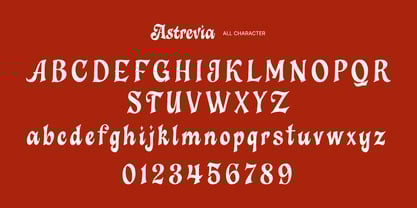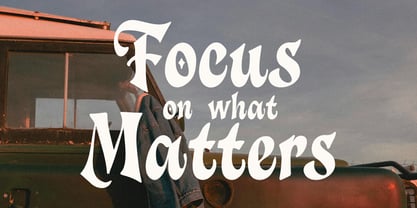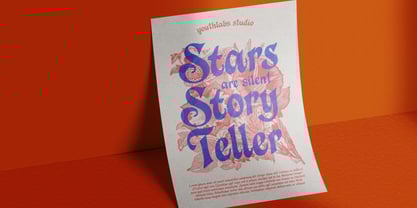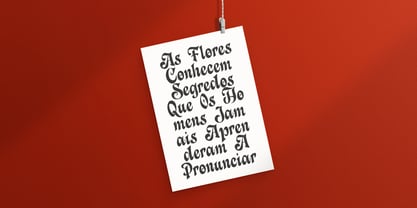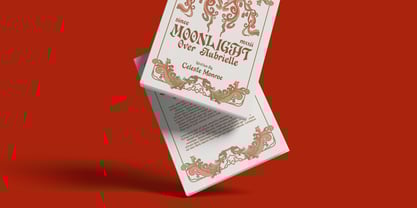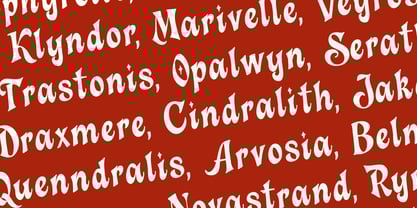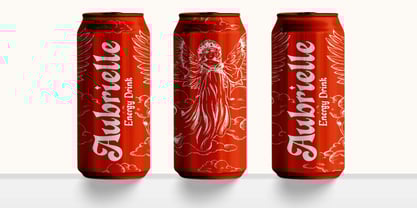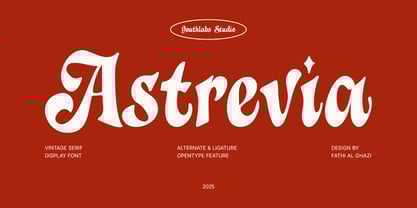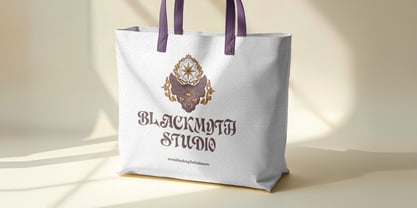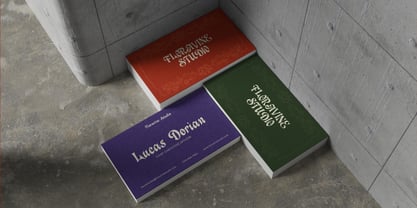
Astrevia
by Youthlabs
The Astrevia Font Family was designed by Fathi Al Ghazi and published by Youthlabs. Astrevia contains 1 styles. More about this family
Astrevia is a bold vintage serif display font that blends classic elegance with playful charm. Featuring stylish curves, decorative serifs, and unique letterforms, Astrevia brings a timeless yet modern aesthetic to your designs. Equipped with alternate characters and ligatures through OpenType features, this font offers flexibility and creativity for any project.
Perfect for branding, logos, packaging, posters, editorial layouts, invitations, and social media graphics, Astrevia is designed to make your typography stand out with character and sophistication.
Designers: Fathi Al Ghazi
Foundry: Youthlabs